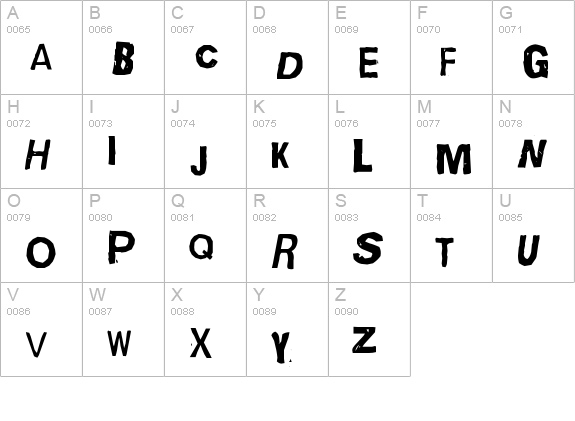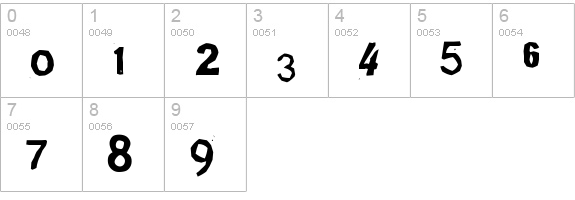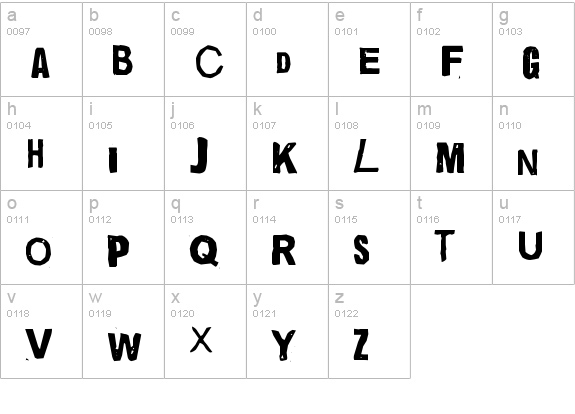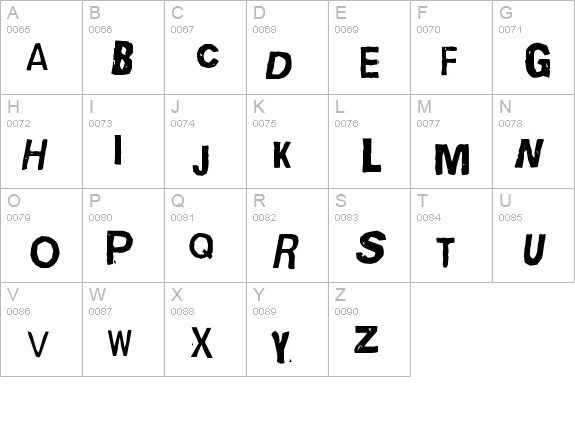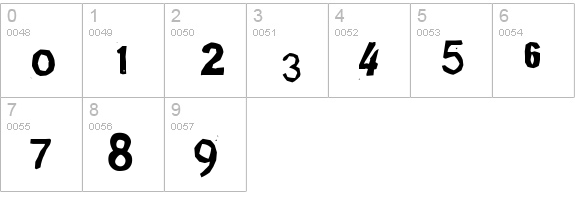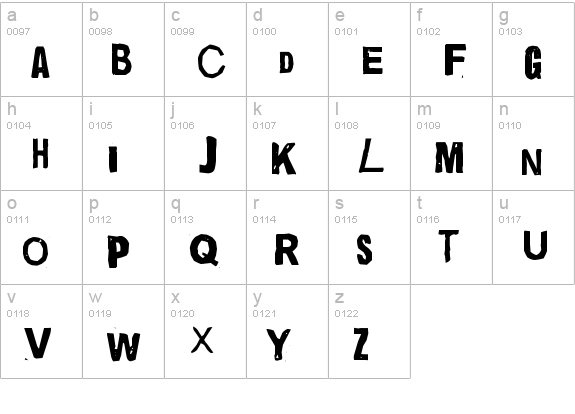
Quick End Jerk Font Details
Introducing Quick End Jerk, a captivating and energetic font that will bring a burst of creativity to your designs. With its unique combination of bold and playful letterforms, this font is perfect for projects that aim to make a statement and leave a lasting impression. Quick End Jerk exudes a sense of spontaneity and dynamism, making it ideal for a wide range of design applications. Whether you're working on a poster, logo, or website, this font will make your text come alive with its lively and vibrant personality. One of the best features of Quick End Jerk is that it is free! Yes, you read that right. This incredible font is freely available to download at FontsMarket.com. So, not only will you be able to enhance your designs with a font that stands out from the crowd, but you can also do so without spending a penny. So why wait? Give your designs a quick and energetic boost with Quick End Jerk. Download it for free today at FontsMarket.com and let your creativity shine!